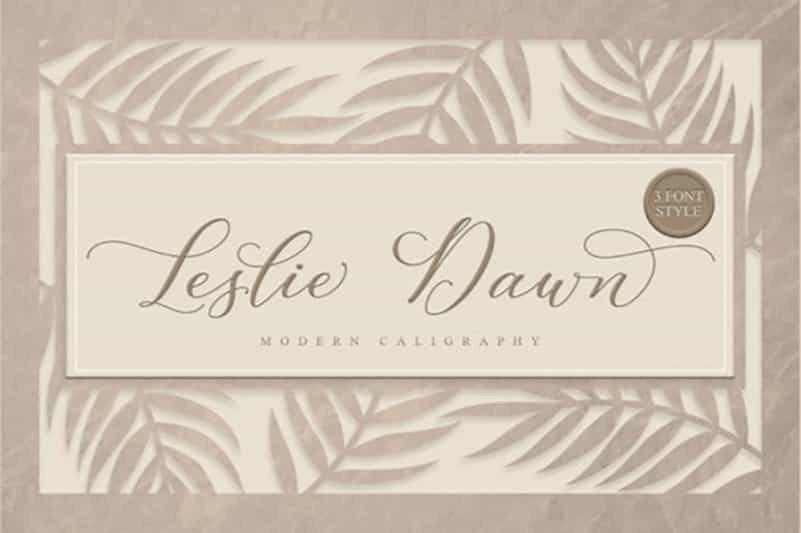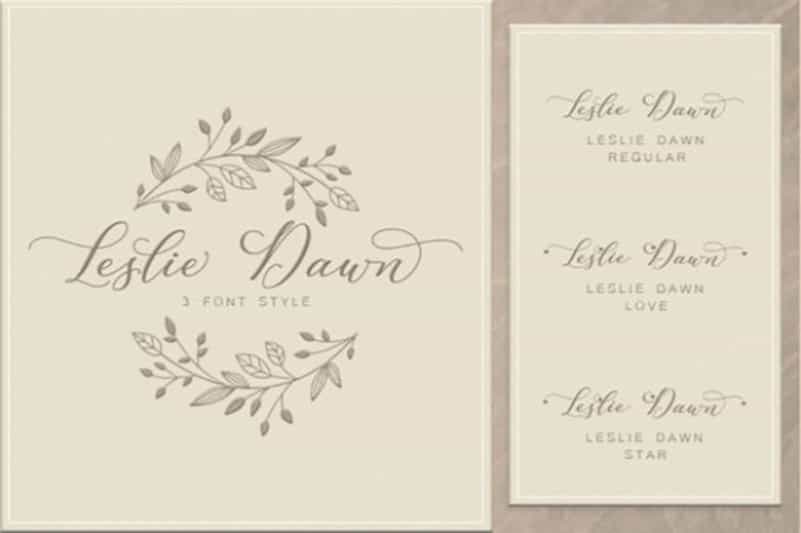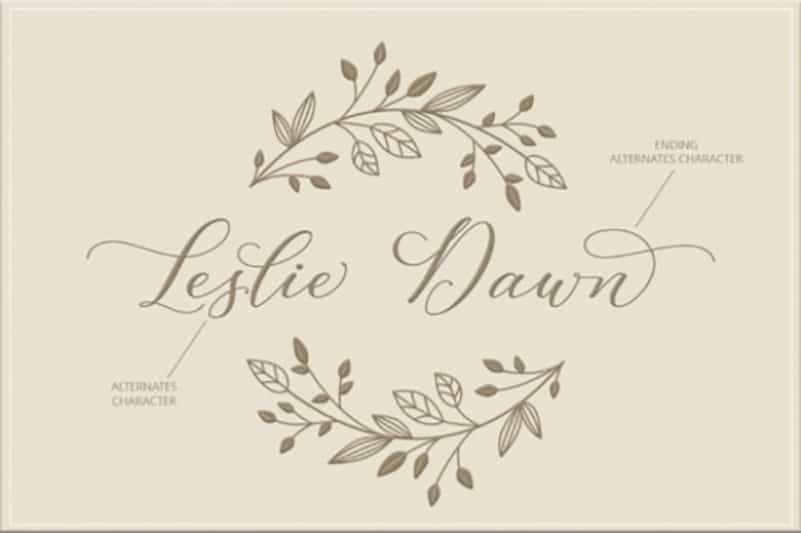
Discover Leslie Dawn Calligraphy Font, part of the Calligraphy collection—a versatile and unique font perfect for adding a personal touch to your projects. Download it for free and enjoy crafting designs with style, from invitations to social media posts. This font is available exclusively for personal use, giving you the freedom to create without limits. Unlock your creativity with Leslie Dawn Calligraphy Font today!
Introducing Leslie Dawn Font. It’s the ideal font for a vast number of crafting endeavours. You would be inspired to work with its wonderful alternates characters! It is ideal for branding projects logo, wedding, social media posts, advertisements, product packaging, product designs, label, photography, watermark, invitation, stationery, and any related projects.